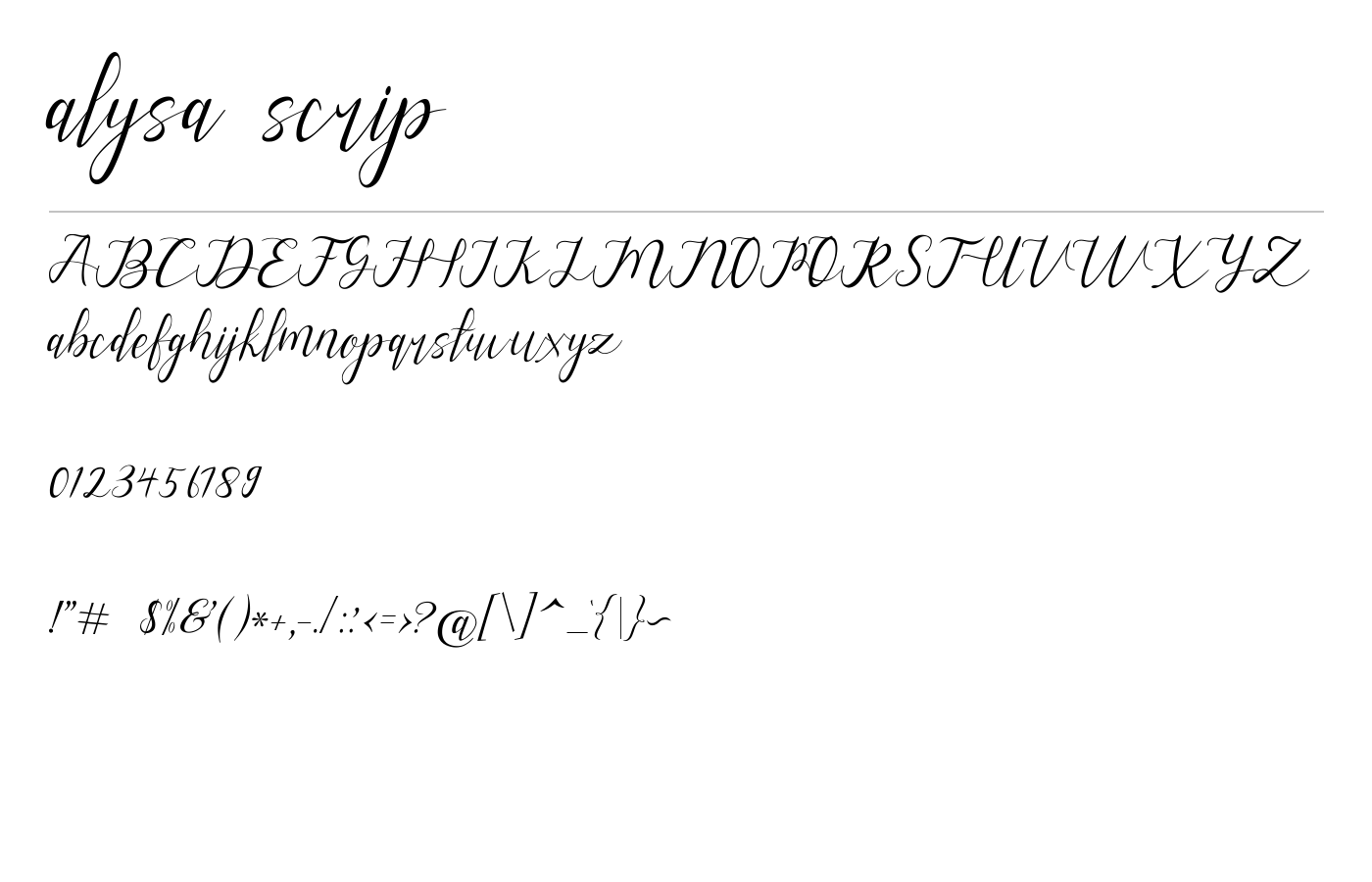
Alysa Script is a delicate and elegant script font with graceful, flowing letterforms that convey a sense of sophistication and charm. Its thin strokes and slightly varied weight create a light, airy feel perfect for stylish invitations, fashion branding, and refined editorial projects. This font’s handwritten quality and refined curves make it ideal for adding a personal, romantic touch to logos and decorative text.
alysa scrip Font
About alysa scrip Font
| Font family | alysa scrip Font |
| Designer | star studio |